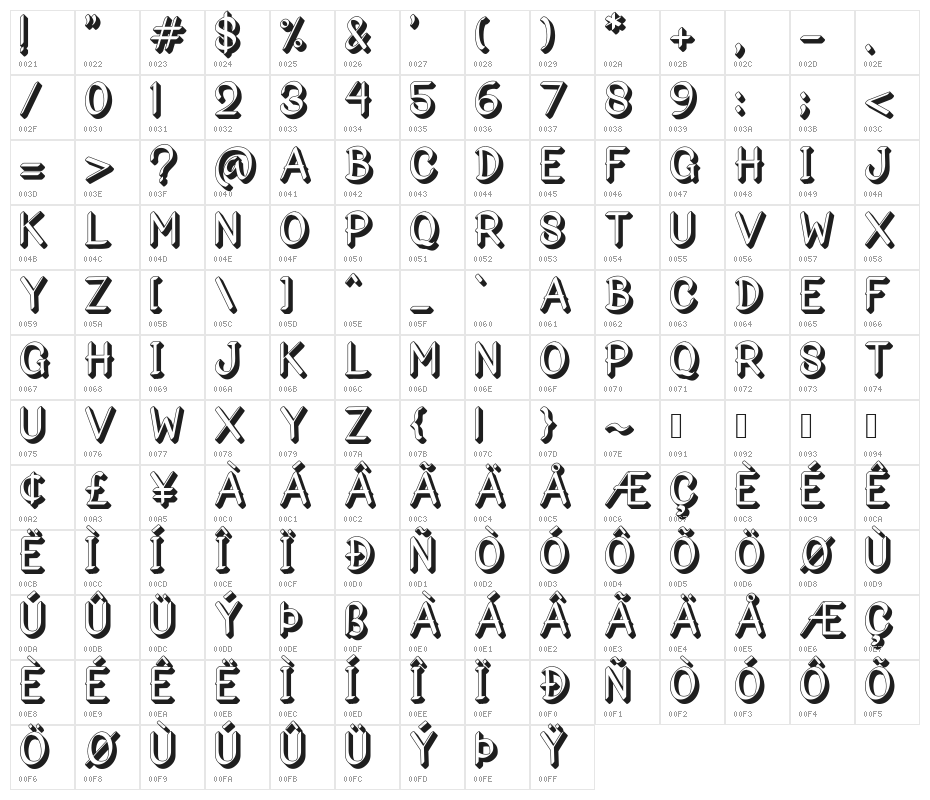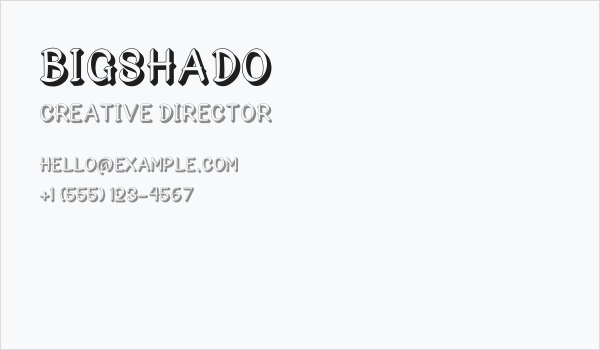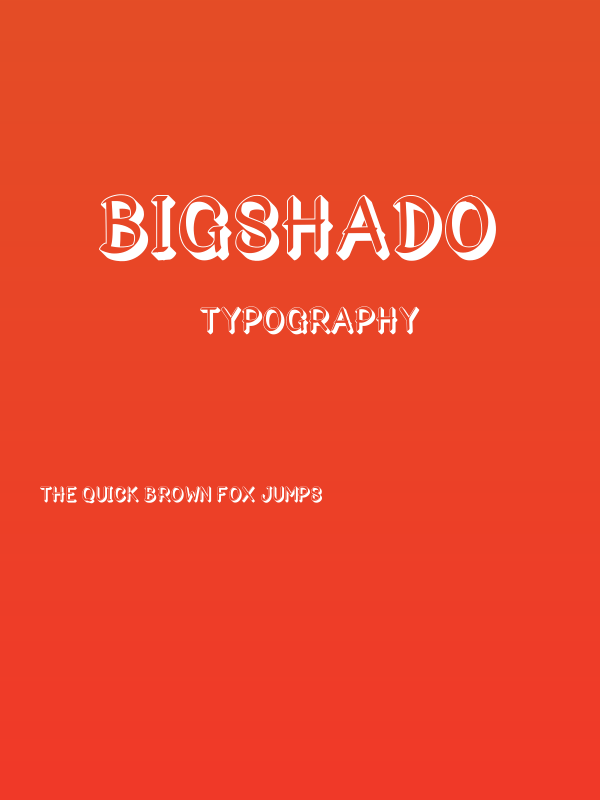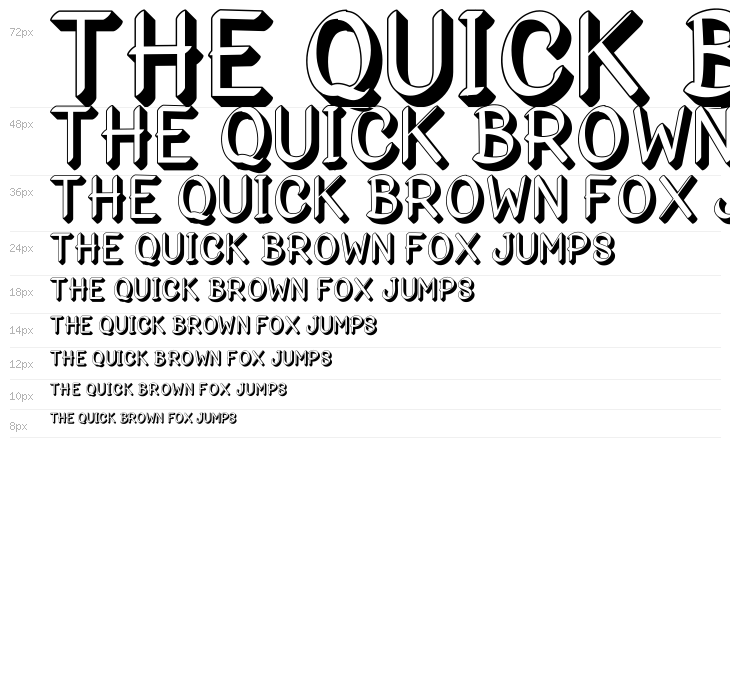
Bigshado Font
Bigshado Description
This font features a bold, three-dimensional shadow effect that gives each character a striking and impactful appearance. The uppercase and lowercase letters are designed with a consistent thickness, creating a cohesive look across the alphabet. The numbers and special characters maintain the same bold style, ensuring uniformity throughout. The shadow effect adds depth and a sense of movement, making it ideal for eye-catching designs. The characters are well-spaced, allowing for readability even with the added dimensionality. This font is perfect for projects that require a strong visual presence.
Proposed ProjectsIdeal for posters, headlines, logos, and any design needing a bold, impactful look.